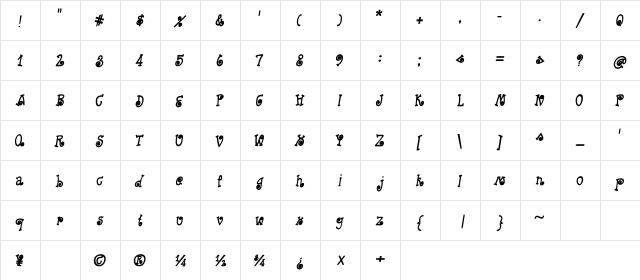
CRU-Kanda-Hand-Written-Bold-Ita Bold-Italic Font Preview
| Designer | Kanda sudsakorn |
Design Context for CRU-Kanda-Hand-Written-Bold-Ita Typeface
CRU-Kanda-Hand-Written-Bold-Ita flows with the natural rhythm of handwritten lettering, making it ideal for designs that call for warmth and personal expression. Its bold stroke weight gives it real presence on the page.
Font Pairing: Combine CRU-Kanda-Hand-Written-Bold-Ita with a simple geometric sans for maximum contrast — the tension between flowing curves and clean structure is a classic typographic pairing.
Pro Tip: Pair CRU-Kanda-Hand-Written-Bold-Ita with a clean sans-serif for supporting text. The contrast between fluid script and geometric structure creates an elegant typographic hierarchy.